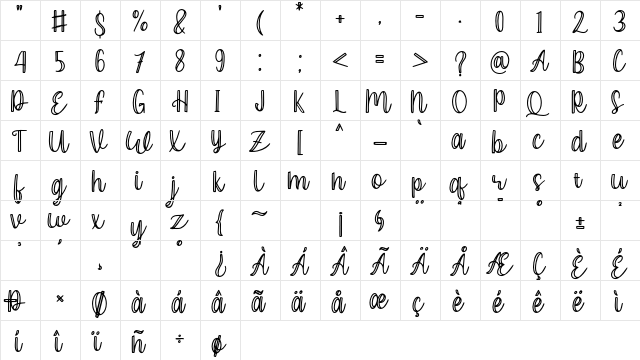
Ceylonia Regular
| Foundry | Attype Studio |
| Designer | Fadli Ramadhan Iskandar - Attype Studio |
Design Context for Ceylonia Typeface
Ceylonia is a composed and adaptable typeface that performs quietly and consistently across a wide range of design contexts.